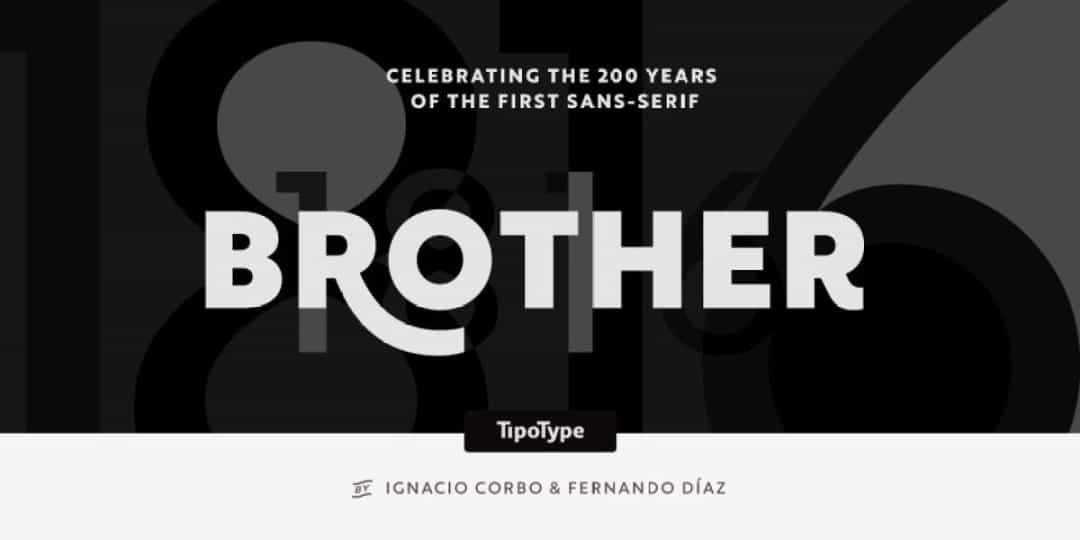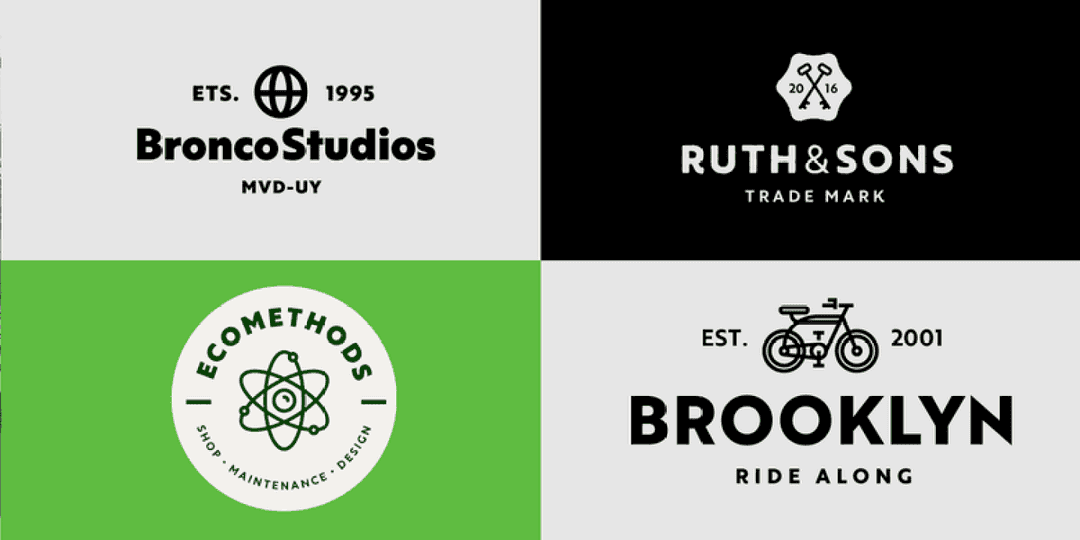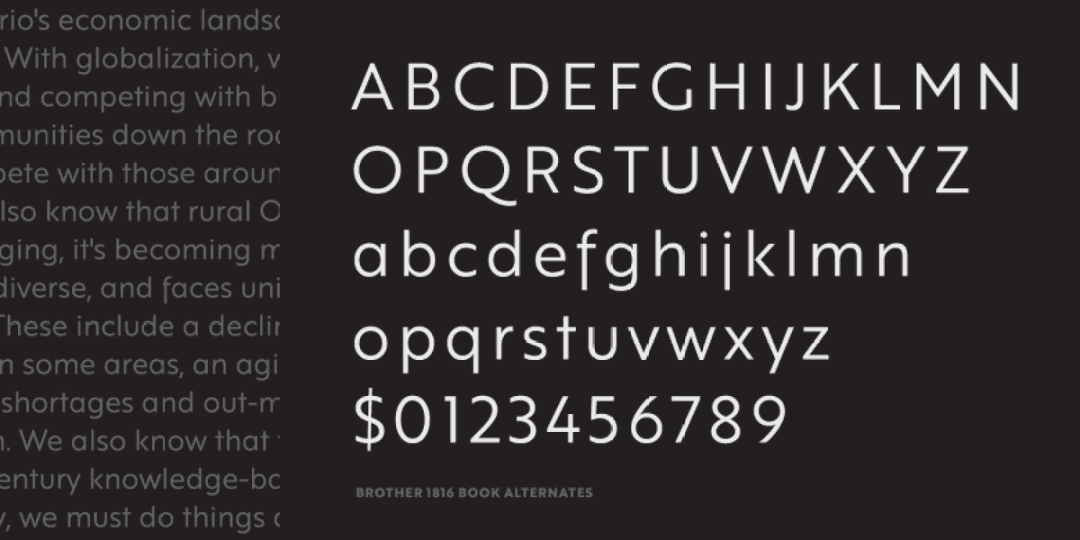
This year will mark 200 years since the creation of the original sans-serif typeface and we want to commemorate that event by recreating our Brother 1816 typeface! Brother 1816 is an adaptable and multi-faceted typeface combining geometric forms with humanistic strokes for striking contrast, providing endless styling combinations! Choose between humanistic or pure geometric styles or mix+20 different characters until one fits your needs perfectly!